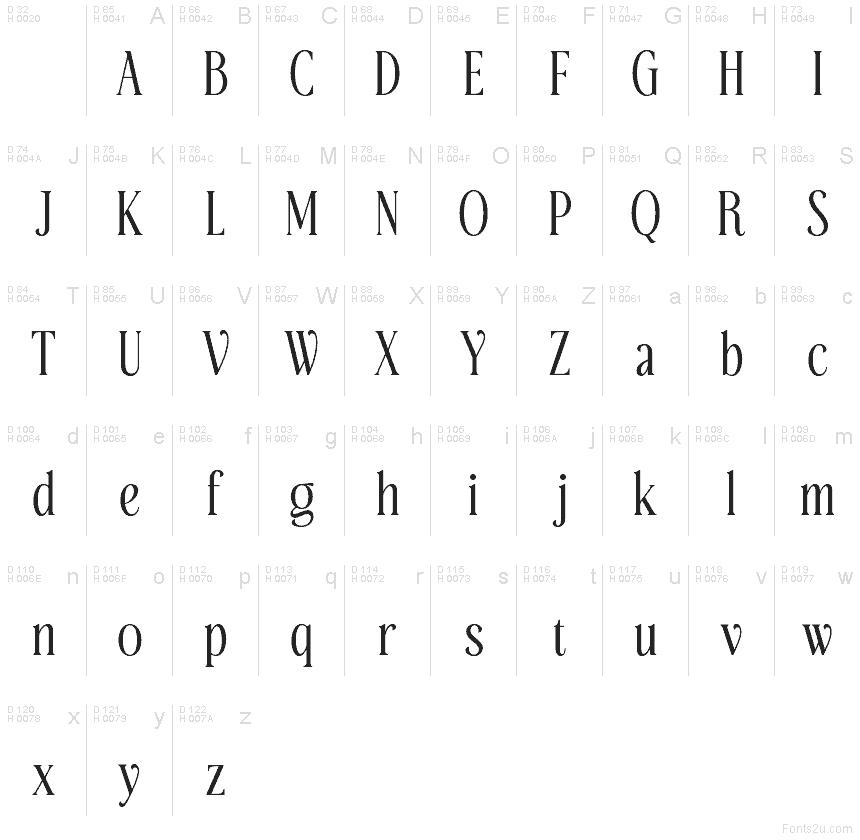
CS Reign Regular Demo
CS Reign font by Craft Supply Co. is an elegant condensed serif typeface with a classic, sophisticated touch. With cool letterforms and stylistic elegance, each text designed with it can look formal and refined. Achieve that exquisite professional finish mixing its up-to-date vibe with your preferred graphic design tools.
Possible usage includes magazine covers, product packages, editorials, advertisements, invitation cards, fashion posters/brochures/flyers for apparel brands or beauty salons/spas; arts exhibitions invitations; or websites designing cosmetics stores'.